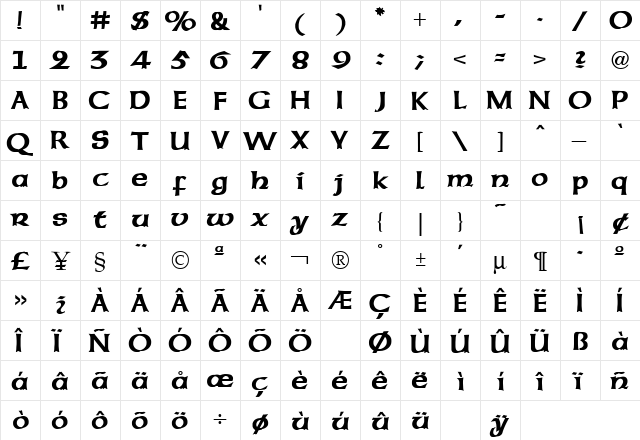
American Uncial Bold
Design Context for American Uncial Typeface
American Uncial takes a measured approach to typography — its balanced proportions and neutral character make it a reliable workhorse for both digital and print work. The heavy weight commands attention and anchors typographic hierarchies.